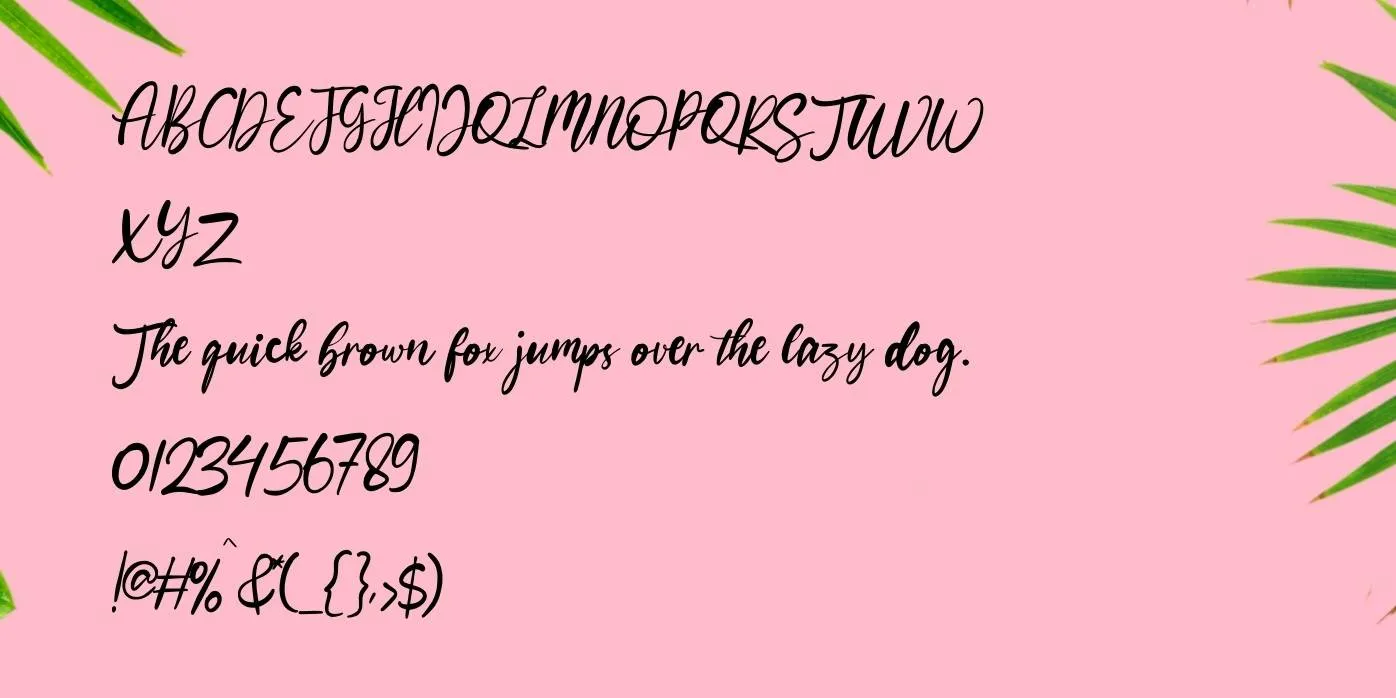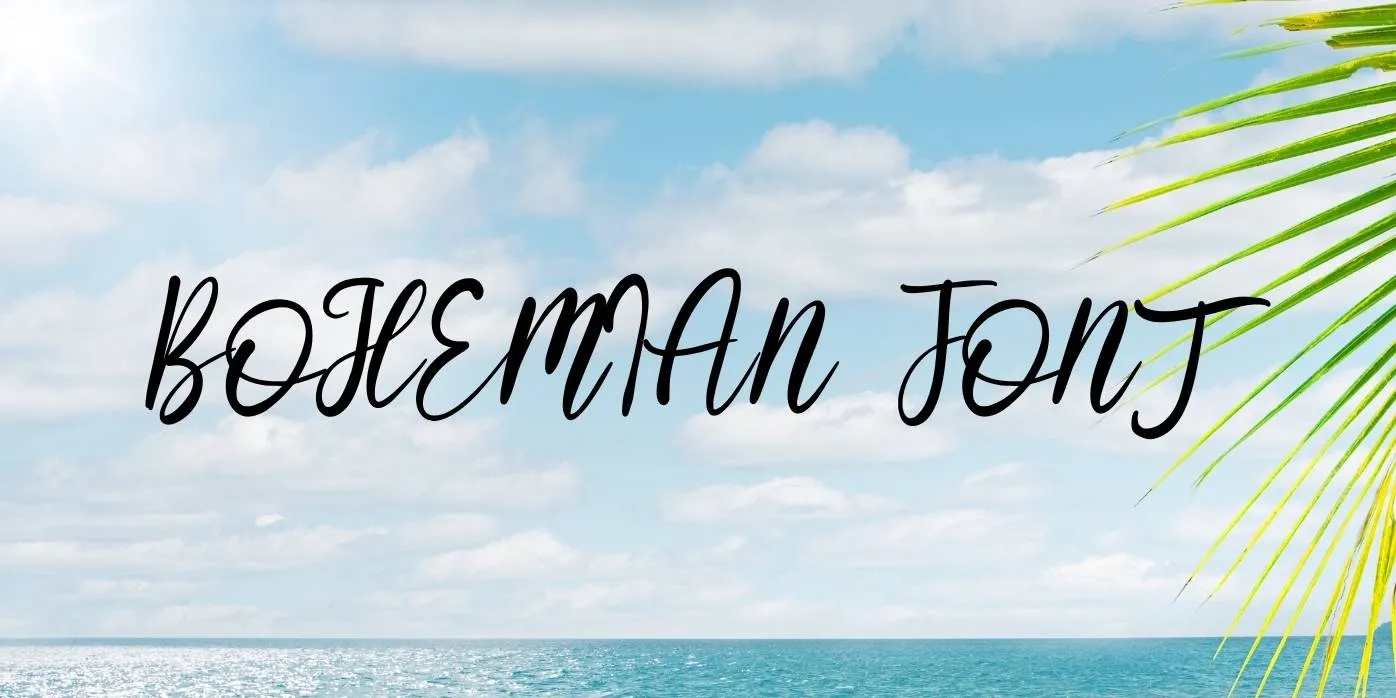
Bohemian Lady Font
Bohemian Lady Font is a very unique structure font that has a rounded character texture that gives a unique feel to your design. This is a top-notch typeface that was designed by a famous studio dcoxy. It has a very beautiful style of calligraphy with a modern touch that gives your design an interesting look. This font style comes in a regular weight that contains around 200 glyphs and many unique characters including swashes and alternates.
You can also generate it through an online font generator tool, that helps to convert your simple text into a stylish look with just a single click. Usage It is a handwritten font that has amazing features. It has a very charming look that can be used for making wedding invitations cards, birthday cards, event decorations, or for every project that needs a touch of uniqueness and cuteness. This font is a versatile font and can be read easily.
What is the type of Bohemian Lady Font? Bohemian Lady is a very unique structure font that has a rounded character texture which gives a unique feel to your design. How many styles and weights are there in Bohemian Lady Font? It has a very beautiful style of calligraphy with a modern touch that comes in a single regular weight.